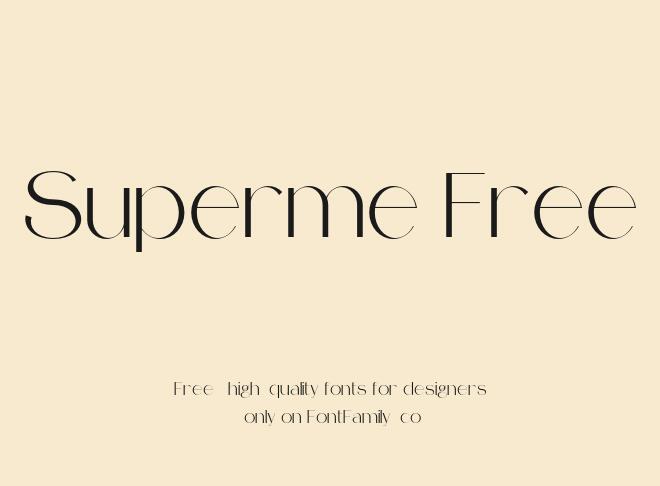
Superme Free Font
Superme Free Font is a bold, modern, and eye-catching typeface that stands out in any design project. With its clean lines and distinct form, Superme is reminiscent of contemporary sans-serif fonts, yet it brings a unique twist that sets it apart. Its bold nature makes it an excellent choice for headlines, logos, and display texts. It's a versatile font that pairs well with both minimalist and intricate designs, offering a balanced look and feel. The font is free for personal use, making it an ideal choice for designers on a budget. Its striking appeal and readability make it a great addition to any designer's toolkit. Superme Free Font, with its modern charm and bold personality, is sure to elevate your design project to new heights.
Author | Design Foundry |